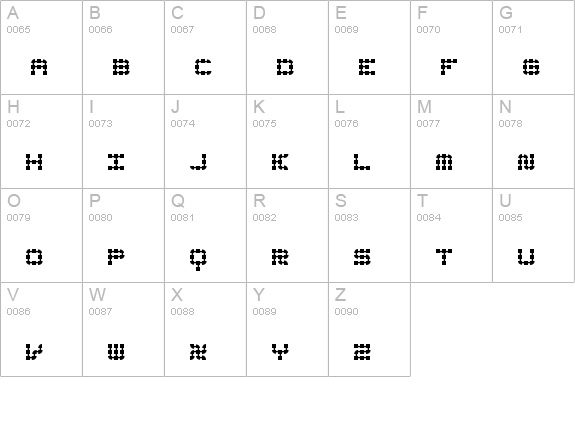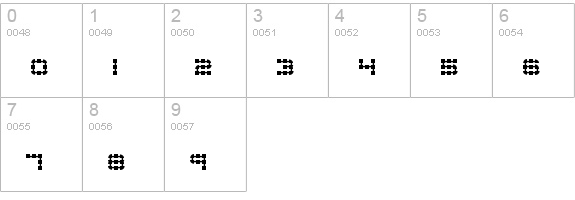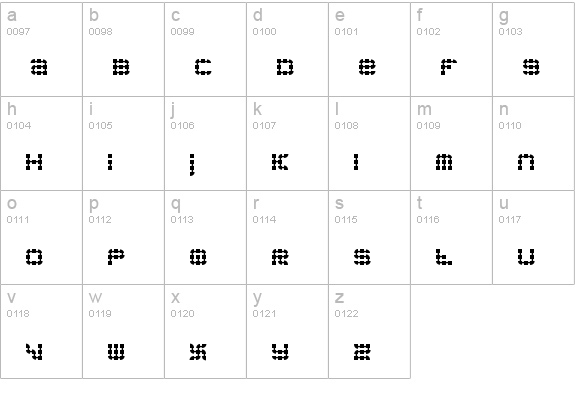
Konector -BRK- font is a modern and stylish typeface that exudes creativity and versatility. With its bold lines and unique design, this font is perfect for adding a touch of sophistication to any project. Whether you're working on a logo, poster, or branding materials, Konector -BRK- font is sure to make a statement. What's even better is that Konector -BRK- font is available for free download at FontsMarket.com. This means you can easily access this beautiful font without any cost, making it a valuable addition to your font collection. Don't miss out on the opportunity to enhance your designs with Konector -BRK- font today!